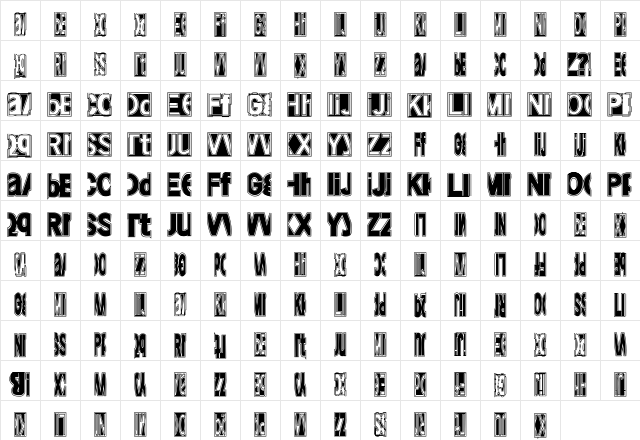
FriendlyFireMagic Regular
Design Context for FriendlyFireMagic Typeface
FriendlyFireMagic is a composed and adaptable typeface that performs quietly and consistently across a wide range of design contexts.